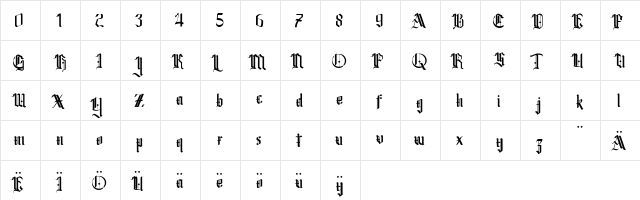
OmertaDemo Regular
Regular · Krisna Teja Krisna Teja ·
DesignerKrisna Teja
Design Context for OmertaDemo Typeface
OmertaDemo is a composed and adaptable typeface that performs quietly and consistently across a wide range of design contexts.